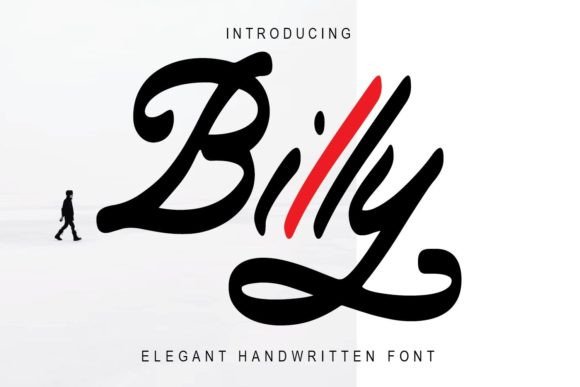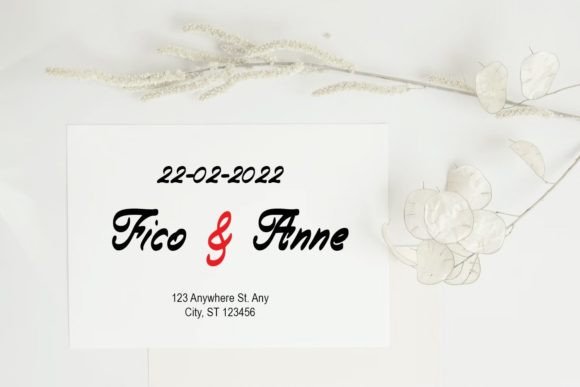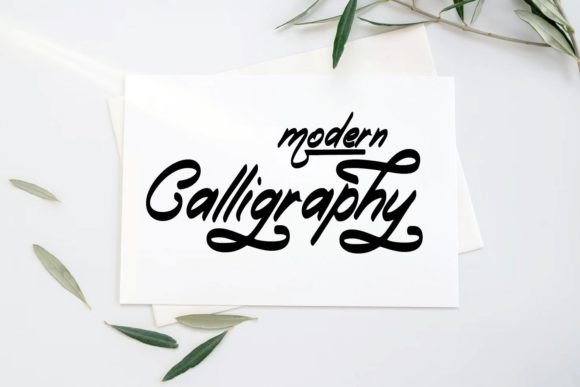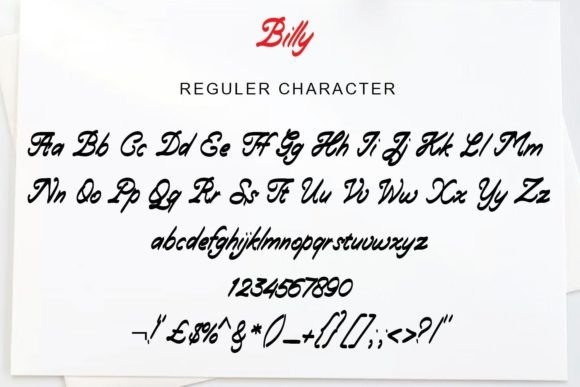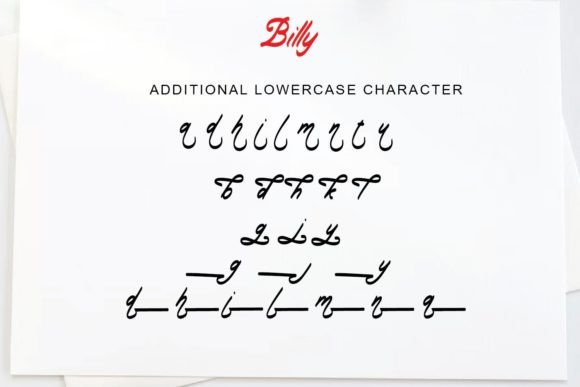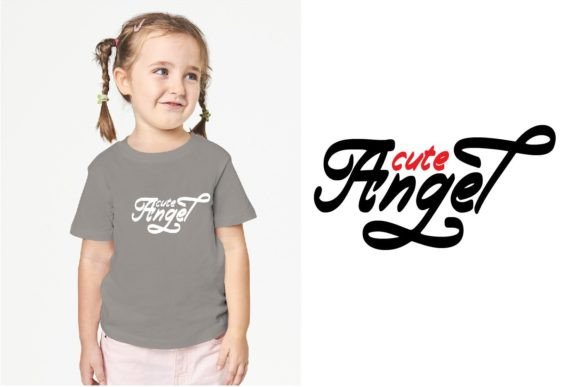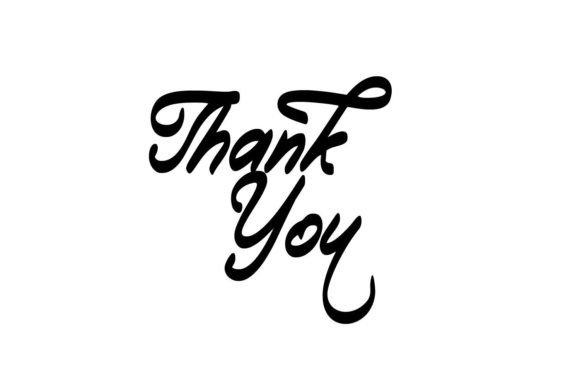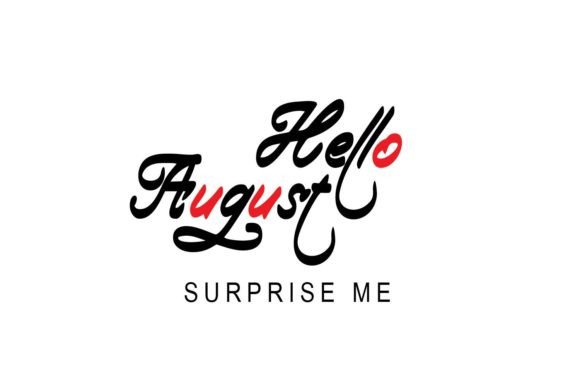
Billy Font
About Billy Font
“Billy” is an elegant and bold handwritten font that combines class, beauty, and modernity, making it an ideal choice for a variety of design applications. Whether you’re working on logos, branding, invitations, stationery, wedding designs, social media posts, or any other creative project, “Billy” is crafted to add a touch of sophistication.
The elegance and boldness of “Billy” make it stand out in various design contexts. Imagine using this font for a luxurious wedding invitation where its classy and modern script enhances the overall aesthetic of the celebration. Picture it on a logo, adding a bold and memorable signature to your brand.
One notable feature of “Billy” is its PUA encoding, providing easy access to a variety of glyphs and swashes. This feature enhances your creative freedom, allowing you to personalize and customize your designs effortlessly. Whether you’re a seasoned designer or someone exploring the world of creativity, “Billy” invites you to experiment with its elegant and bold handwritten style.
As you incorporate “Billy” into your design projects, let its elegance and boldness be the key elements that elevate your work. Whether you’re creating logos, branding materials, or invitations, “Billy” ensures that your designs make a lasting impression with its sophisticated and modern handwritten charm.